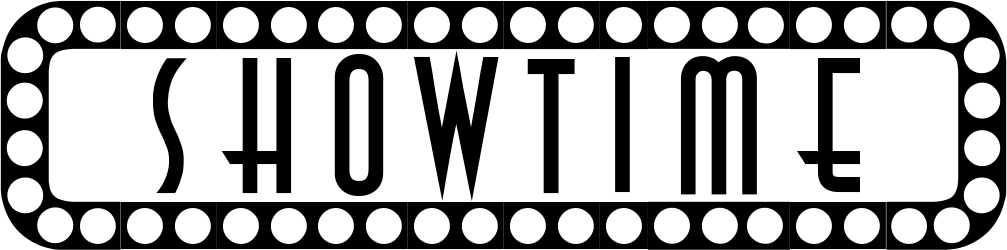
Showtime Font
Designed byRandy Ford
If you’re seeking to develop a poster or flyer for a theatrical production but feel your design may be lacking a certain element, we have an answer and it is Showtime. It’s a theater font that would change your project into something great. This 70s disco font offers you only the uppercase of the alphabet, the numbers, and the punctuation marks.